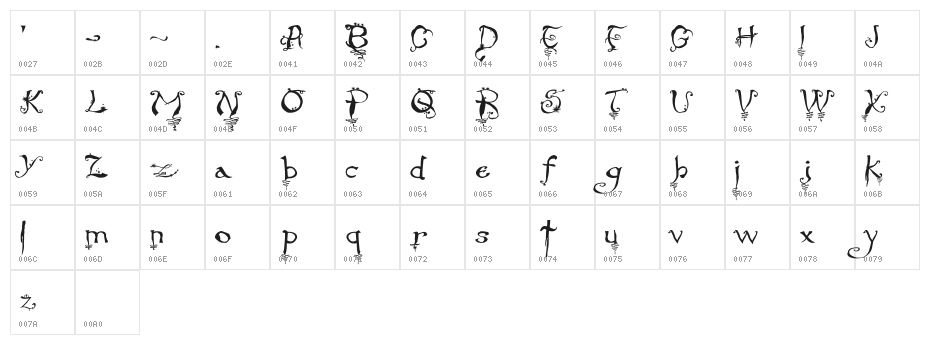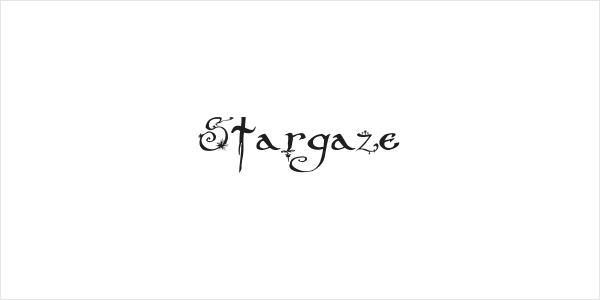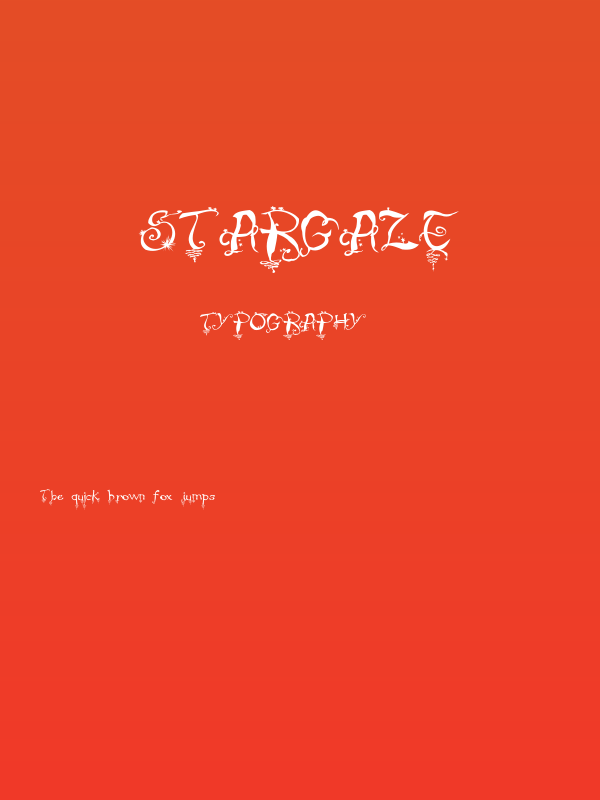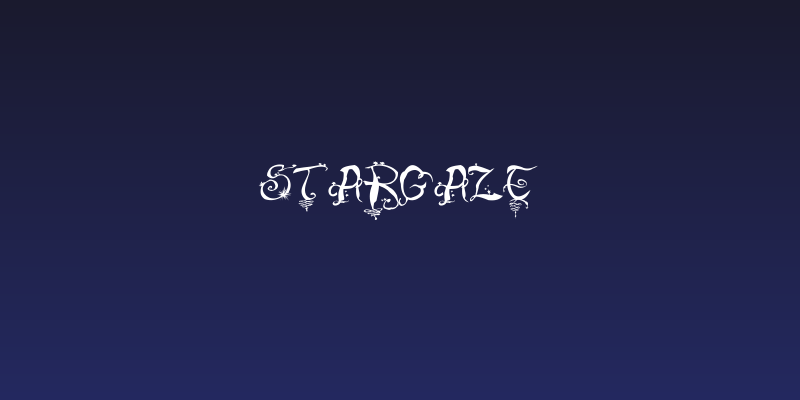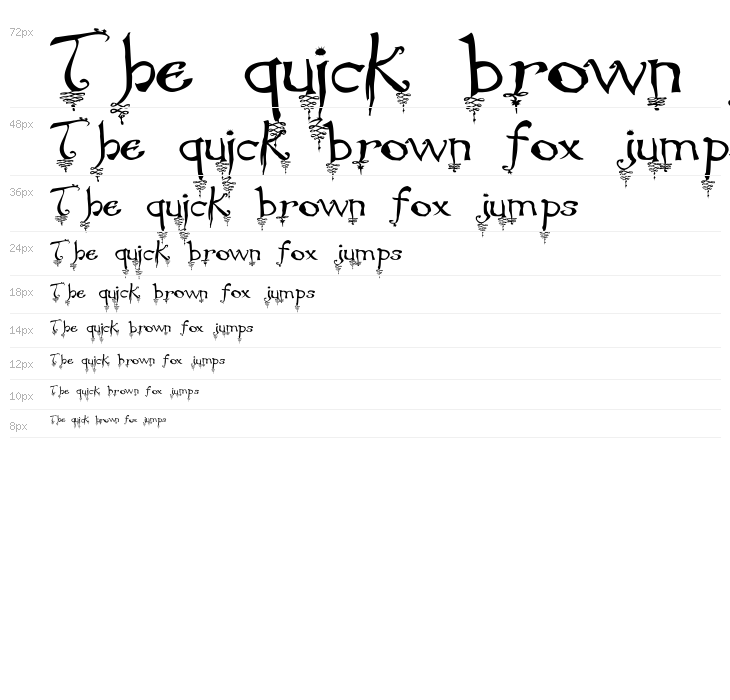
Stargaze Font
| Stile generale | Fantasy, Mystical, Decorative |
| Caso d'uso | Headlines, Logos, Decorative text |
| Progetti proposti | Perfect for fantasy book covers, magical event invitations, or mystical branding projects. |